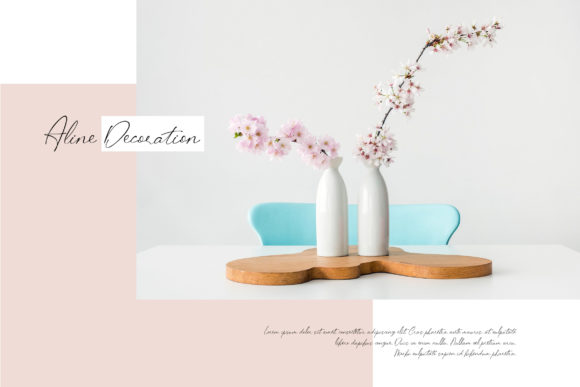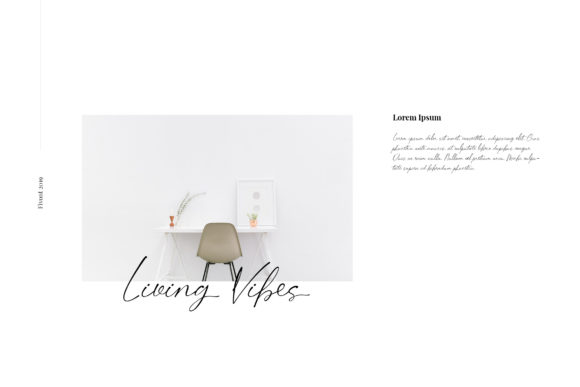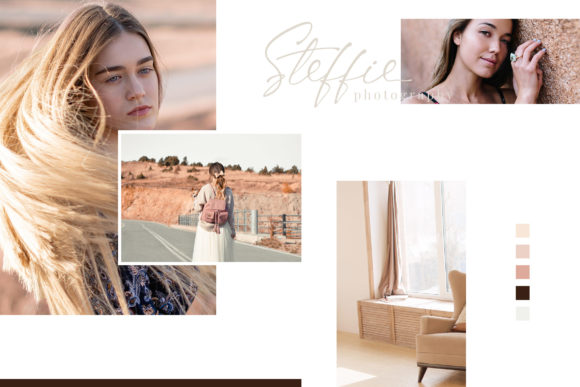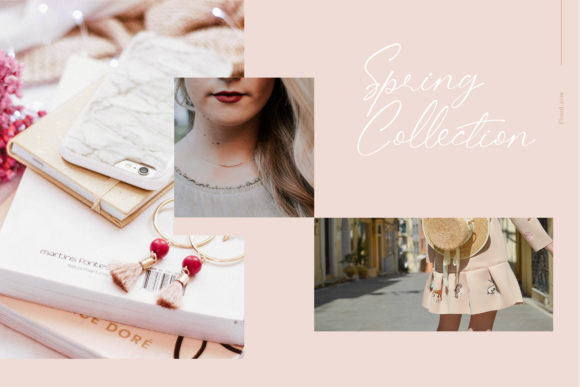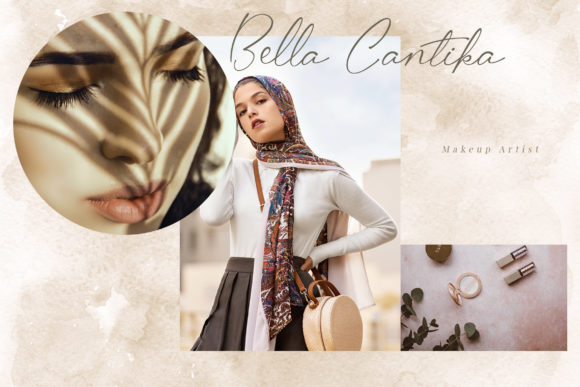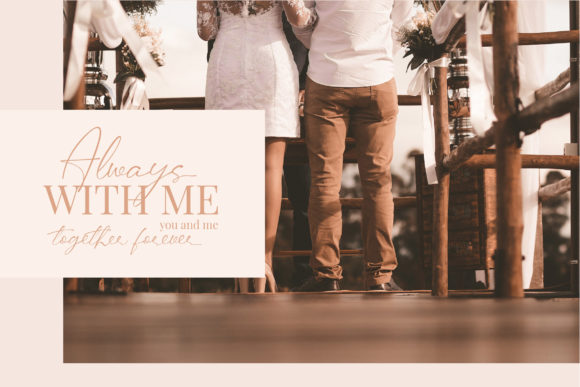
Introduction to Lifogia Font
Remember that moment when you’re working on a creative project and you’re stuck on finding the perfect font to give it that extra oomph? You browse through countless options, and yet, nothing seems to match the vision in your mind. Well, we’re here to change that with the introduction of the stunning Lifogia Font.
This beautiful script font is designed to effortlessly put a modern feel to any design idea, making it an invaluable resource for designers. With its high-quality design and transparent background, you can be sure that your project will stand out from the crowd. Whether you’re a seasoned pro or just starting out, the Lifogia Font is sure to be a game-changer in your design arsenal.
Key Features of Lifogia Font
• High-quality, professional font suitable for various creative projects, including logos, branding, and digital design.
• Features a transparent background, allowing for seamless integration with other design elements and backgrounds.
• Designed with a unique, modern aesthetic, Lifogia Font is perfect for those looking to add a touch of sophistication to their designs.
• Includes a range of characters, including uppercase and lowercase letters, numbers, and punctuation marks, making it a versatile font for various design needs.
Honest Review: Lifogia Font
I recently had the chance to work with the Lifogia Font for a creative project, and I must say, it was a pleasant surprise. This free download has quickly become one of my go-to design resources.
Here are some things that worked well for me:
• High-quality design that’s perfect for a variety of projects
• Transparent background makes it easy to integrate into any design
• Wide range of customization options
• Limited character set – it’s only available in a single language
• Not suitable for high-impact headlines due to its subtle design
Overall, I’m impressed with the Lifogia Font’s clean and minimalist aesthetic. It’s perfect for designers who want a high-quality design resource without breaking the bank. While it may not be the best choice for every project, I’ve found it to be a reliable and versatile option.
Getting the Most Out of Lifogia Font
To get the most out of Lifogia Font, use it in conjunction with other high-quality design resources, such as images and graphics. This will help you create a cohesive and visually appealing design. Additionally, consider using a transparent background to give your design a clean and modern look.
Lifogia Font is suitable for a variety of creative projects, including logos, business cards, and social media graphics. Its high-quality design makes it an excellent choice for any design resource that requires a professional and modern look.
Alternatives to Lifogia Font
Great Vibes is a beautiful, high-quality script font perfect for creative projects that require a touch of elegance and sophistication. It’s ideal for use in titles, headings, and other design elements where a unique, handwritten look is desired.
Compared to Lifogia Font, Great Vibes has a more refined and polished appearance, making it a great choice for designers who want to add a high-end feel to their work. Great Vibes is a free download, making it an excellent alternative to Lifogia Font for designers on a budget.
Alex Brush is a stunning, high-quality script font that’s perfect for designers who want to add a touch of sophistication and elegance to their creative projects. It’s ideal for use in titles, headings, and other design elements where a unique, handwritten look is desired.
Is Lifogia Font suitable for high-quality designs?
Lifogia Font is designed to deliver high-quality results, with its clear and crisp characters making it perfect for a wide range of design applications. The font also features a transparent background, allowing for seamless integration with other design elements. This makes it an ideal choice for designers looking to create professional-looking designs.